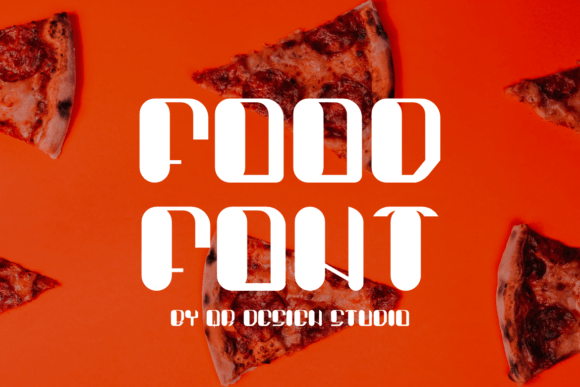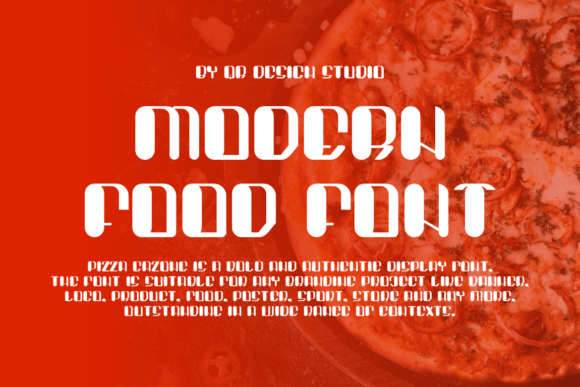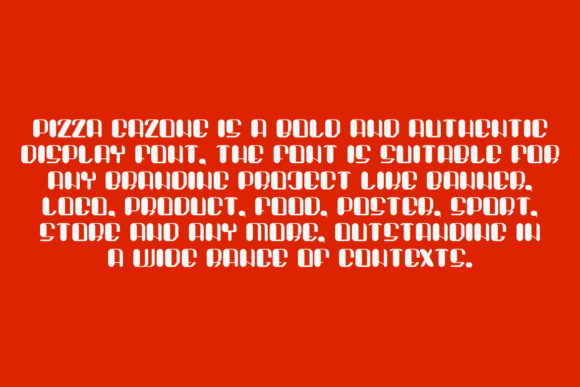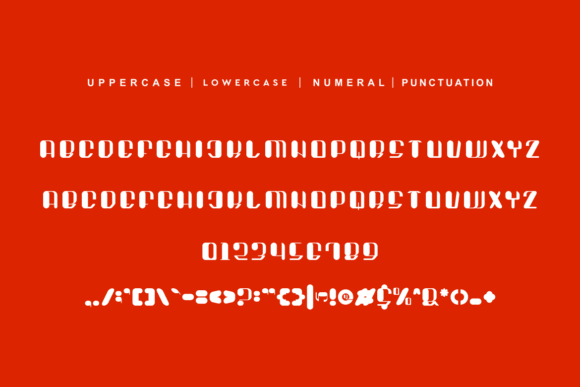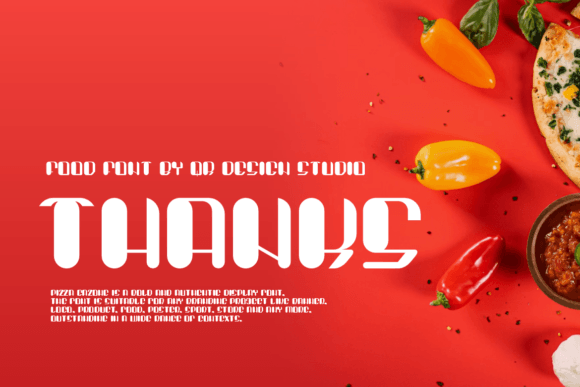
Introduction to Pizza Gazone Font
Pizza Gazone is a bold and assertive sans serif font.
Key Features of Pizza Gazone Font
Why Choose Pizza Gazone Font?
Pizza Gazone Font offers exceptional quality and versatility, making it a valuable addition to your design toolkit. Whether you’re creating for personal projects or commercial use, Pizza Gazone Font delivers professional results.